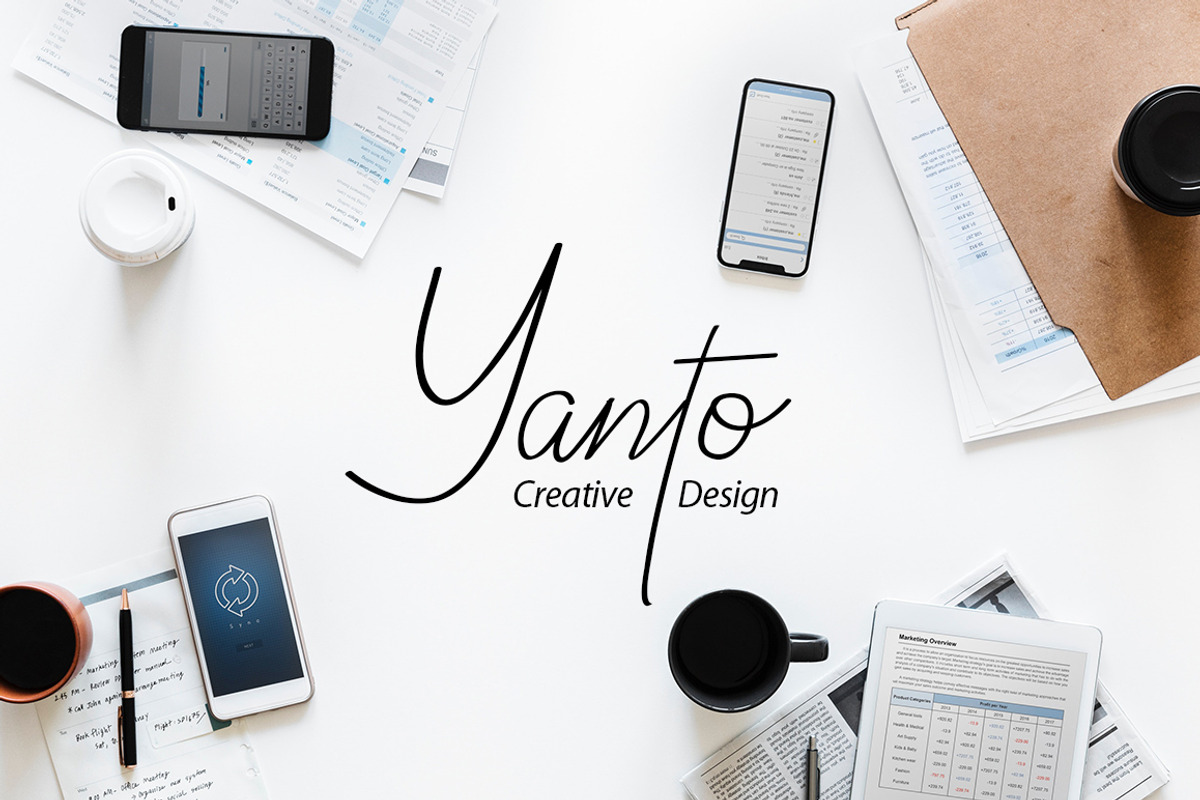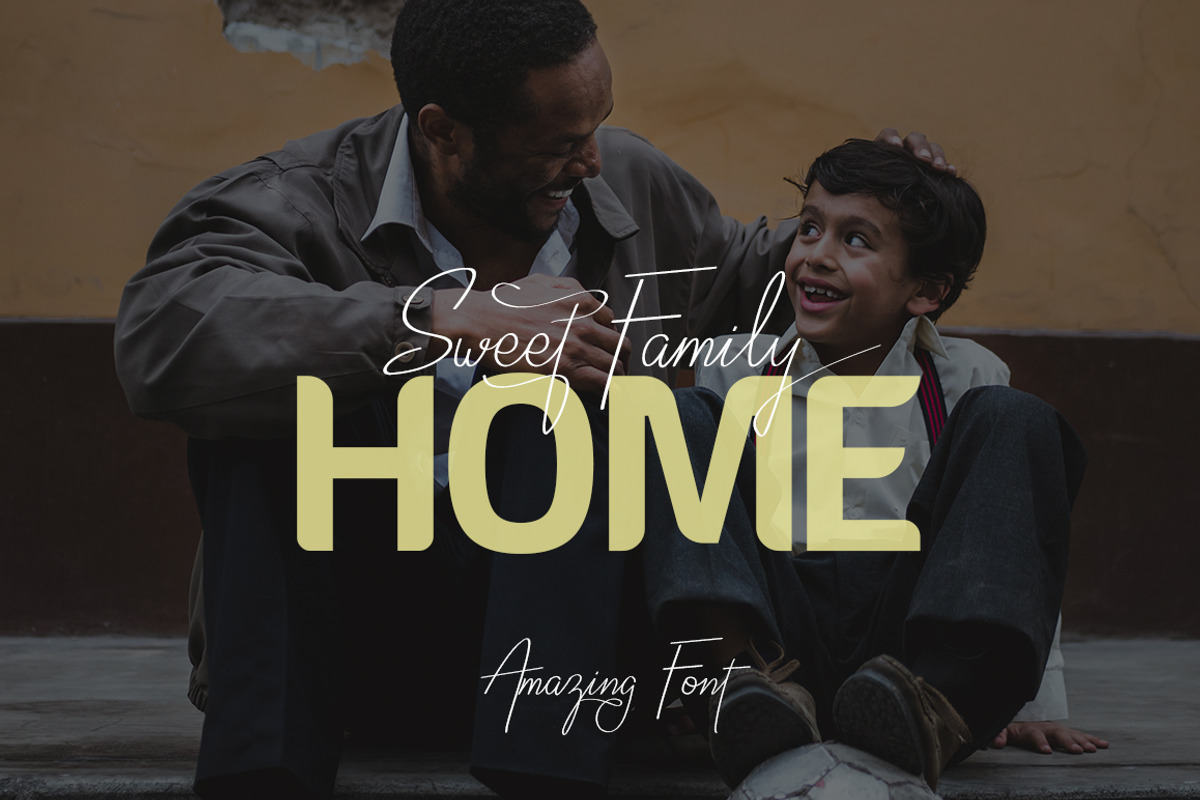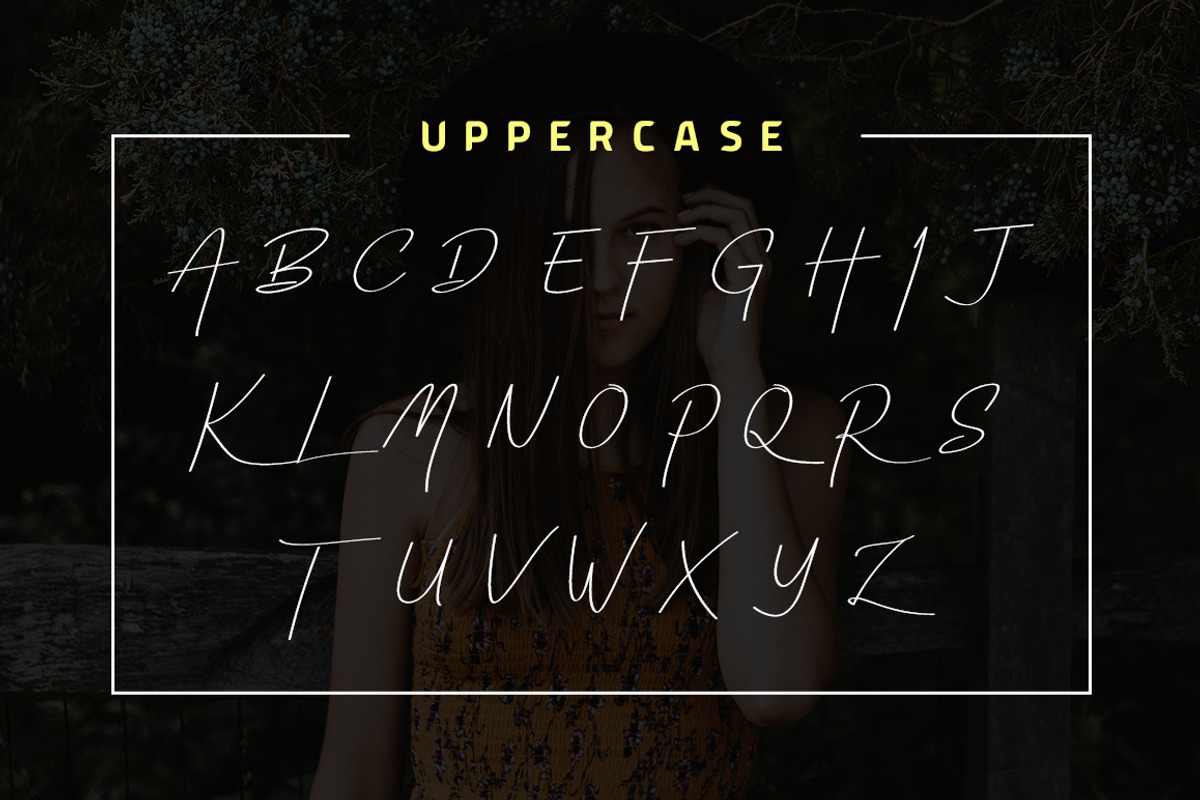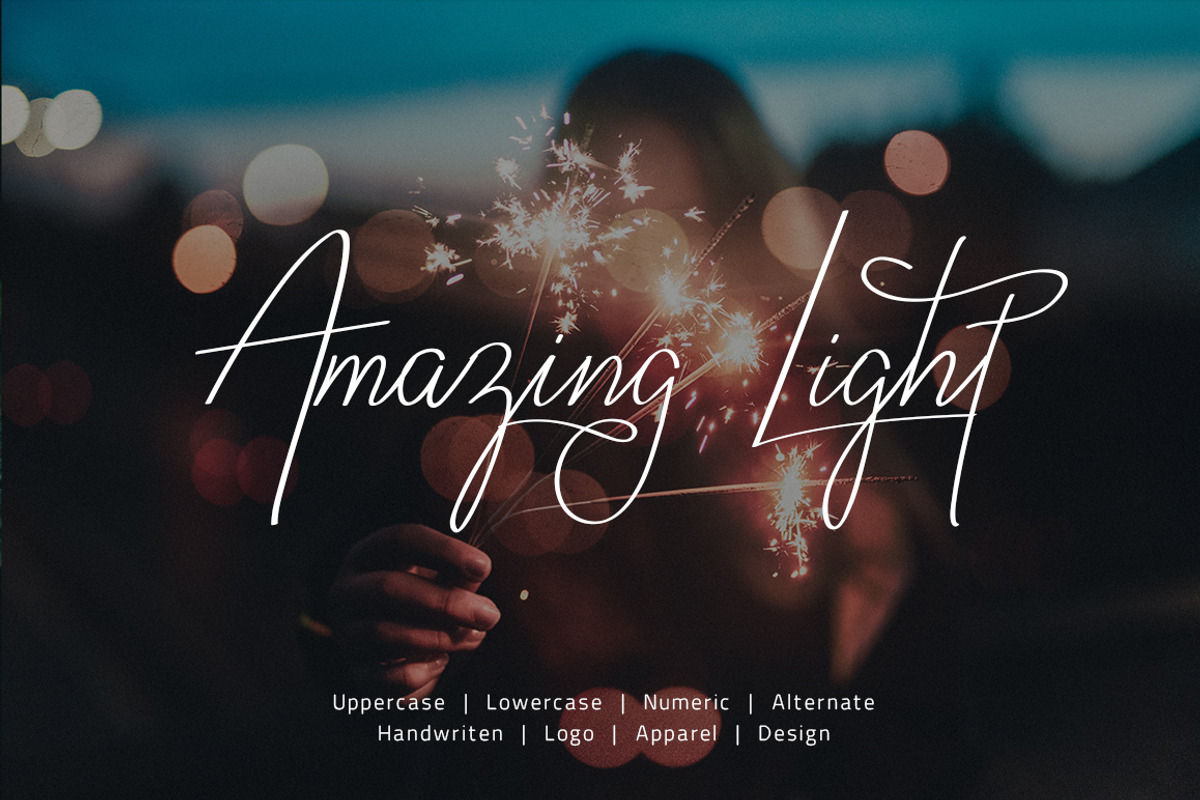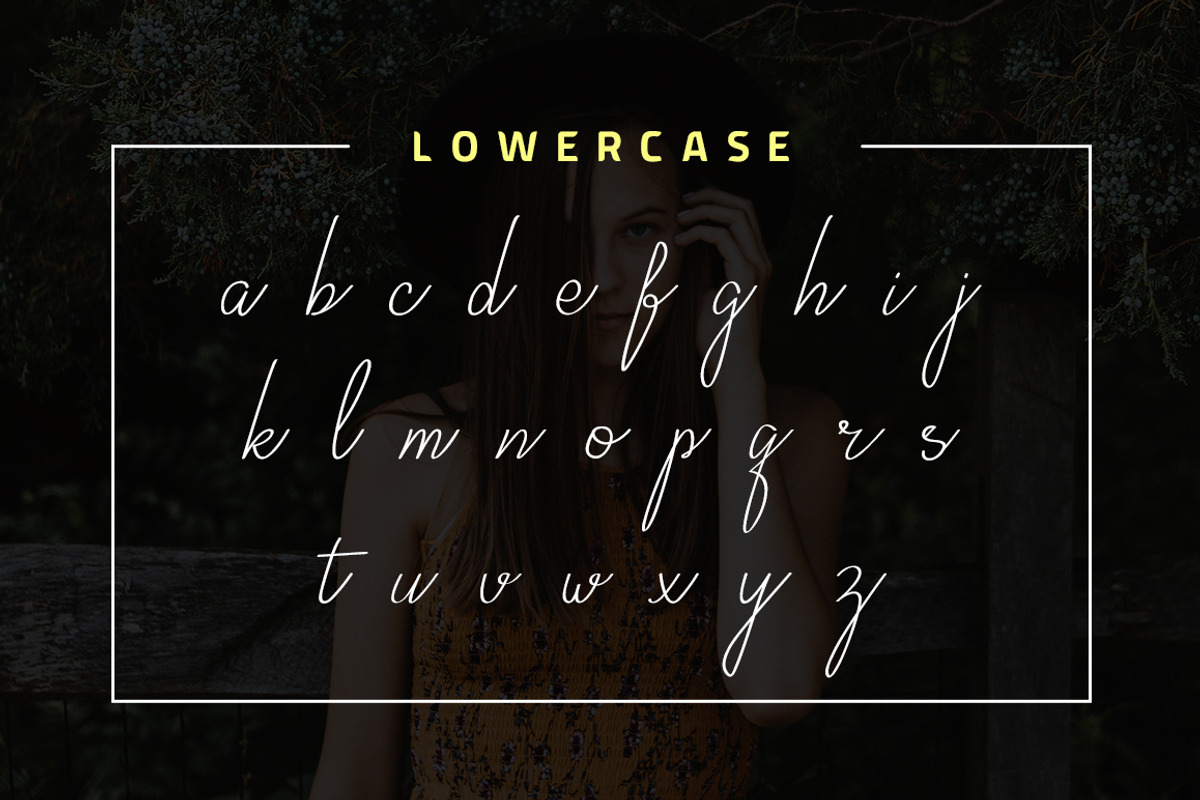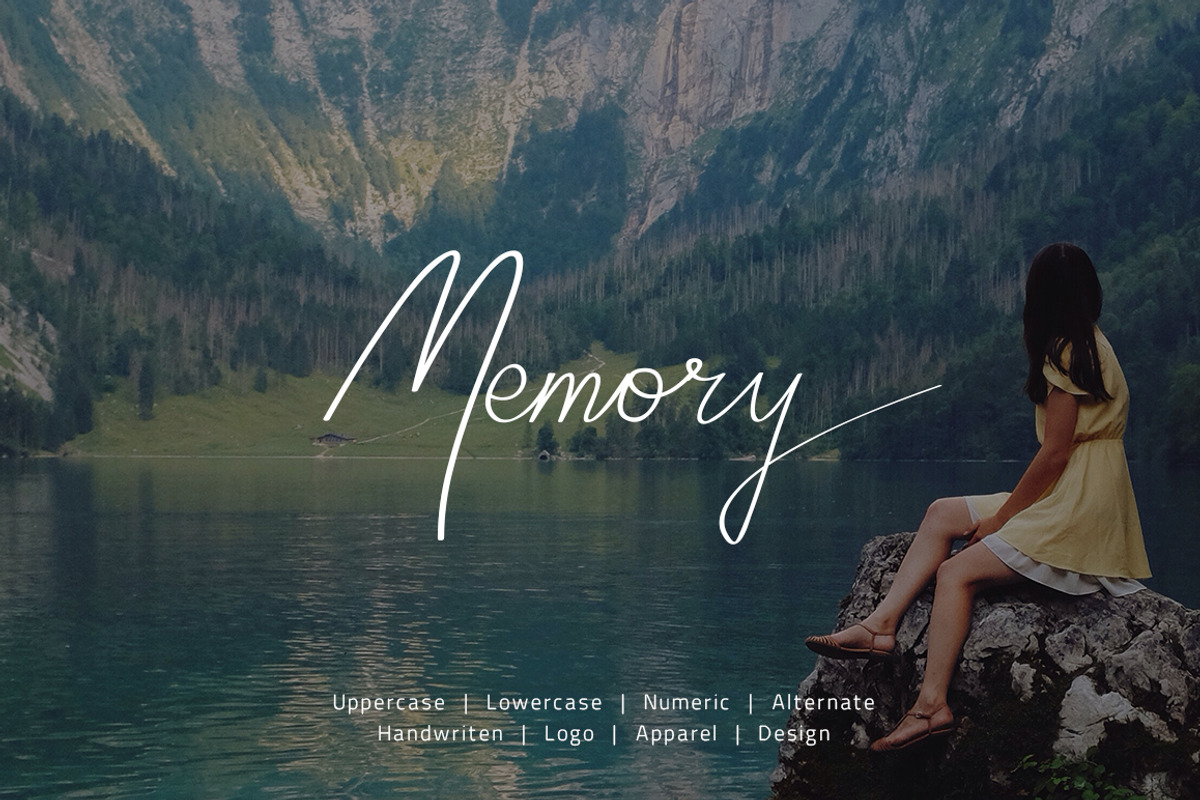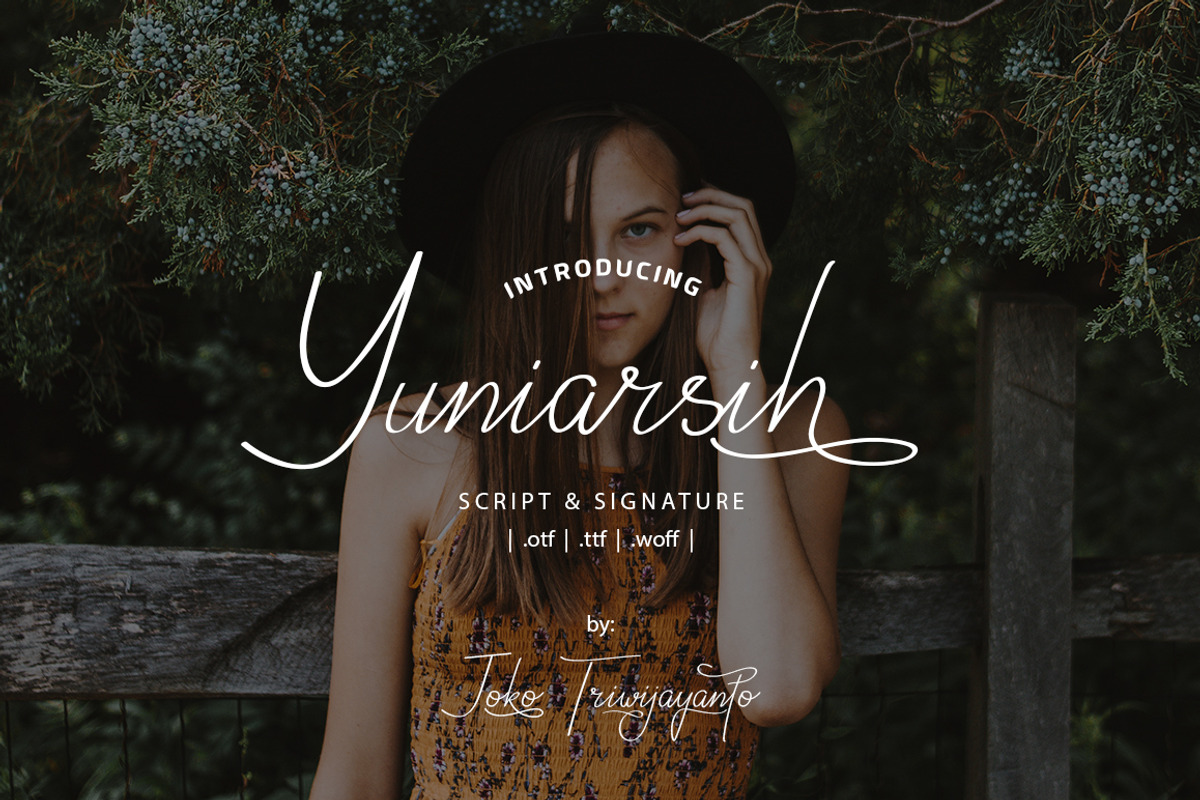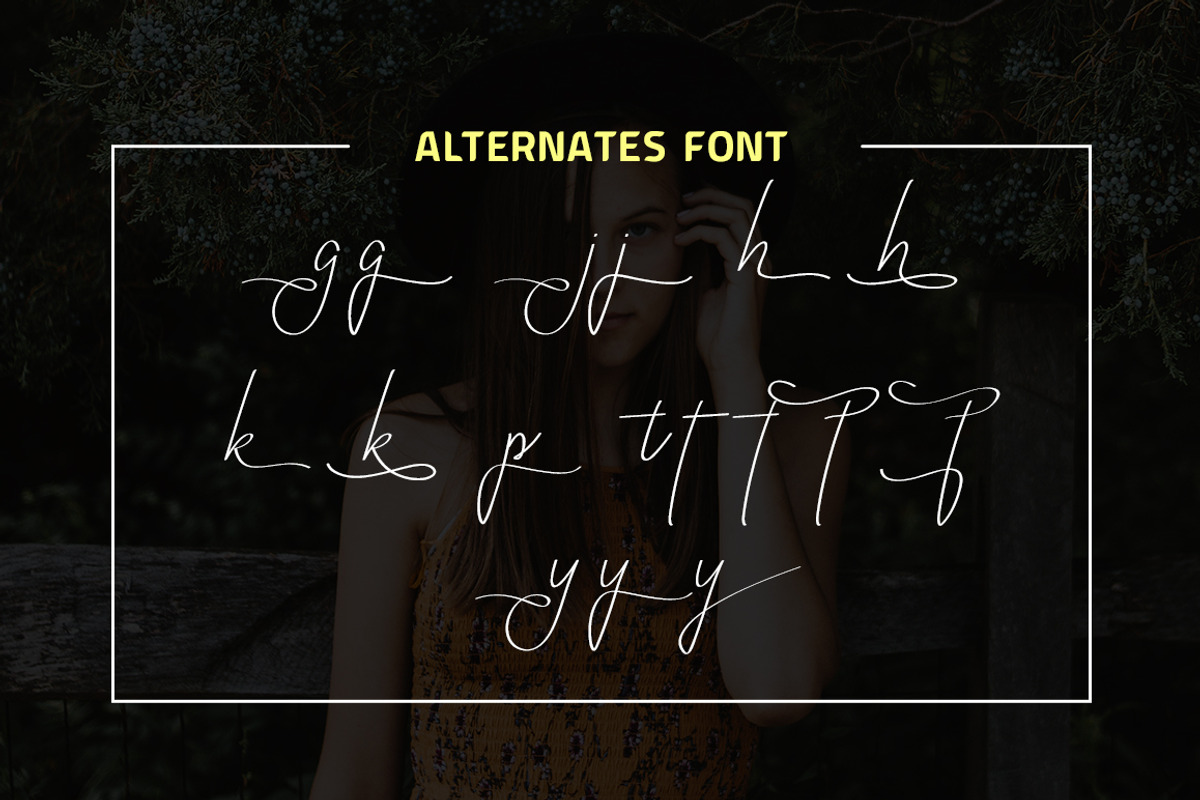
Yuniarsih // Luxury Signature Font
Yuniarsih Script is a stylish calligraphy font that features a varying baseline, smooth line, classic and interesting touch. Can be used for various purposes. such as headings, signature, logos, posters, t-shirt, signage, lable, wedding invitation, badges etc.
Yuniarsih // Luxury Signature Font by yantodesign fits naturally into Branding, posters, packaging, typography.